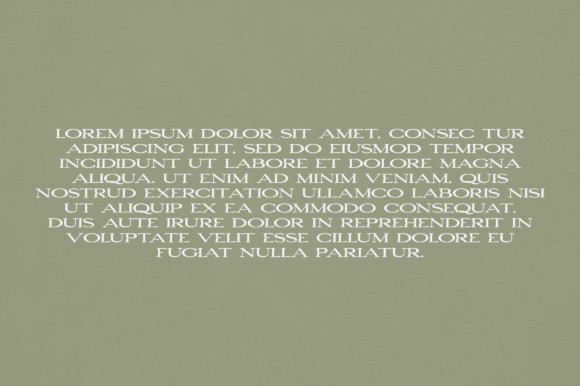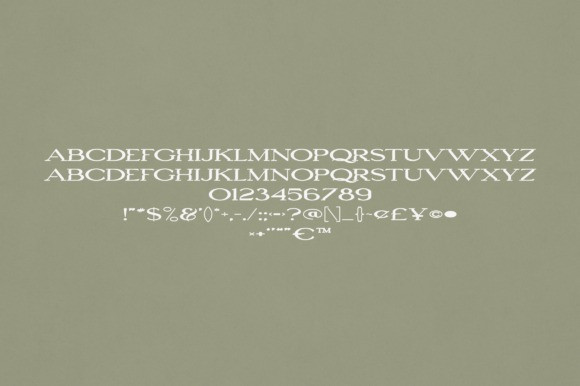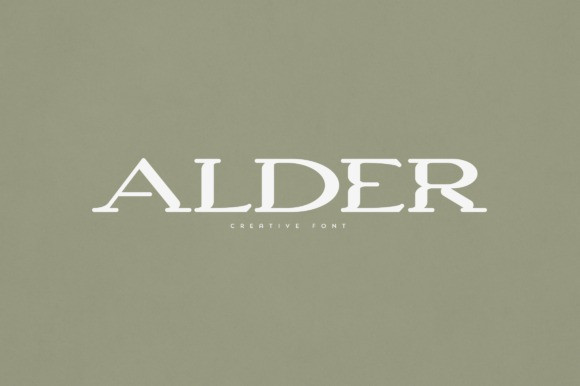
Alder Font
Alder Font is an elegant and versatile font that will make your typography truly unique! It will enchant every logo, branding, headline, or plain text!